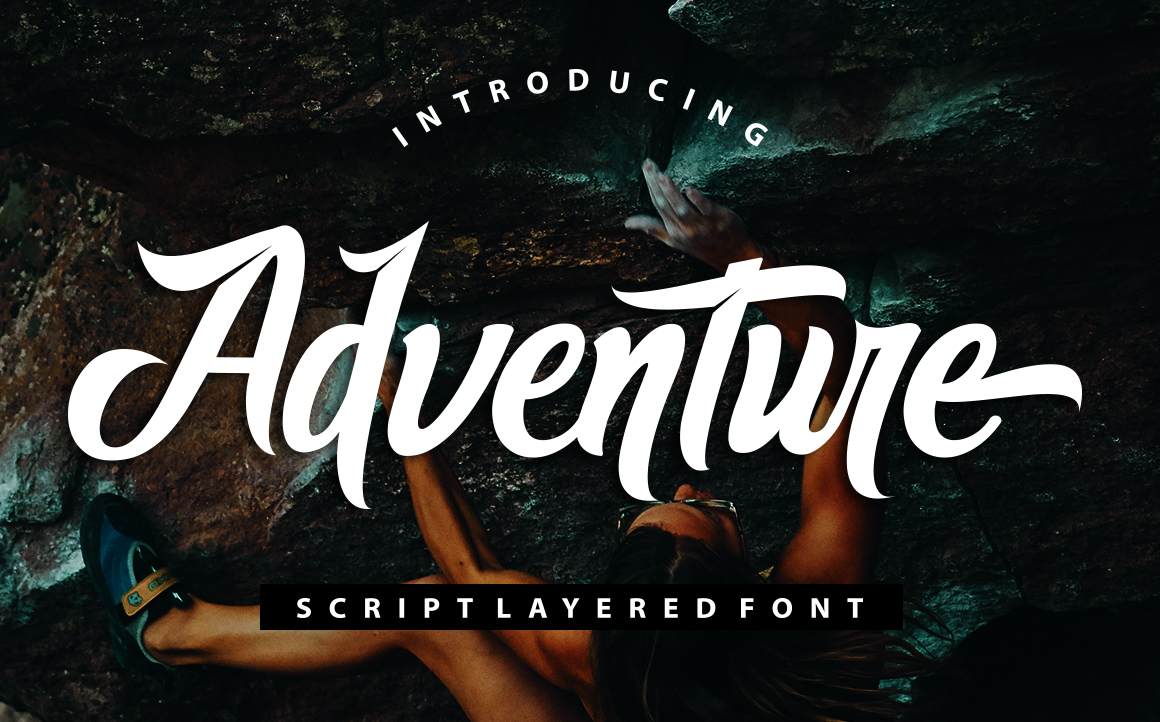
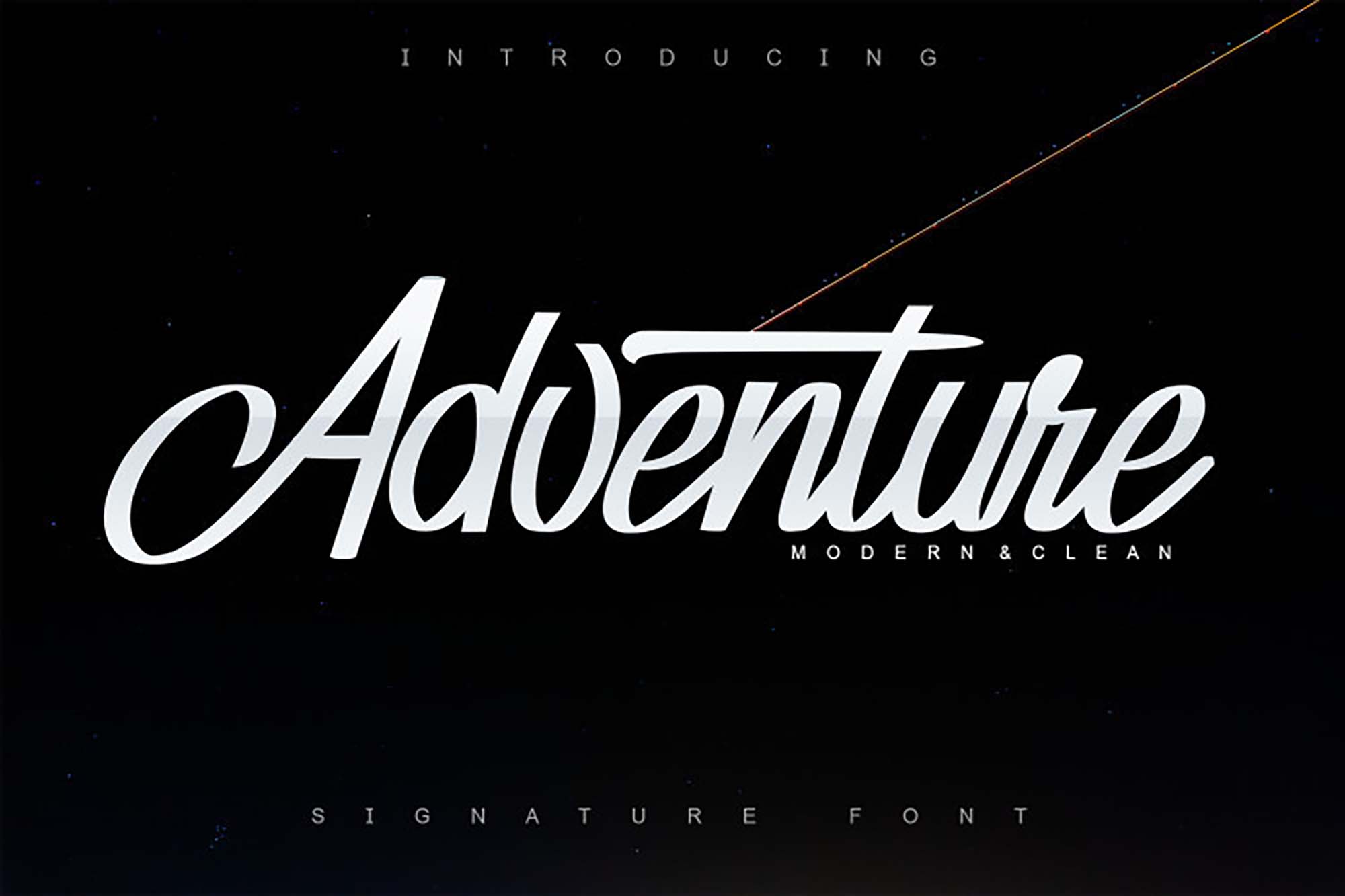
Adventure is a flowing handwritten font, described by an elegant touch, perfect for your favorite projects. We have 15 free adventure, playful, logotype fonts to offer for direct downloading · 1001 fonts is your favorite site for free fonts since 2001 Adventure font font specimen the adventure is a striking layered font.
Adventure Is A Flowing Handwritten Font, Described By An Elegant Touch, Perfect For Your Favorite Projects.